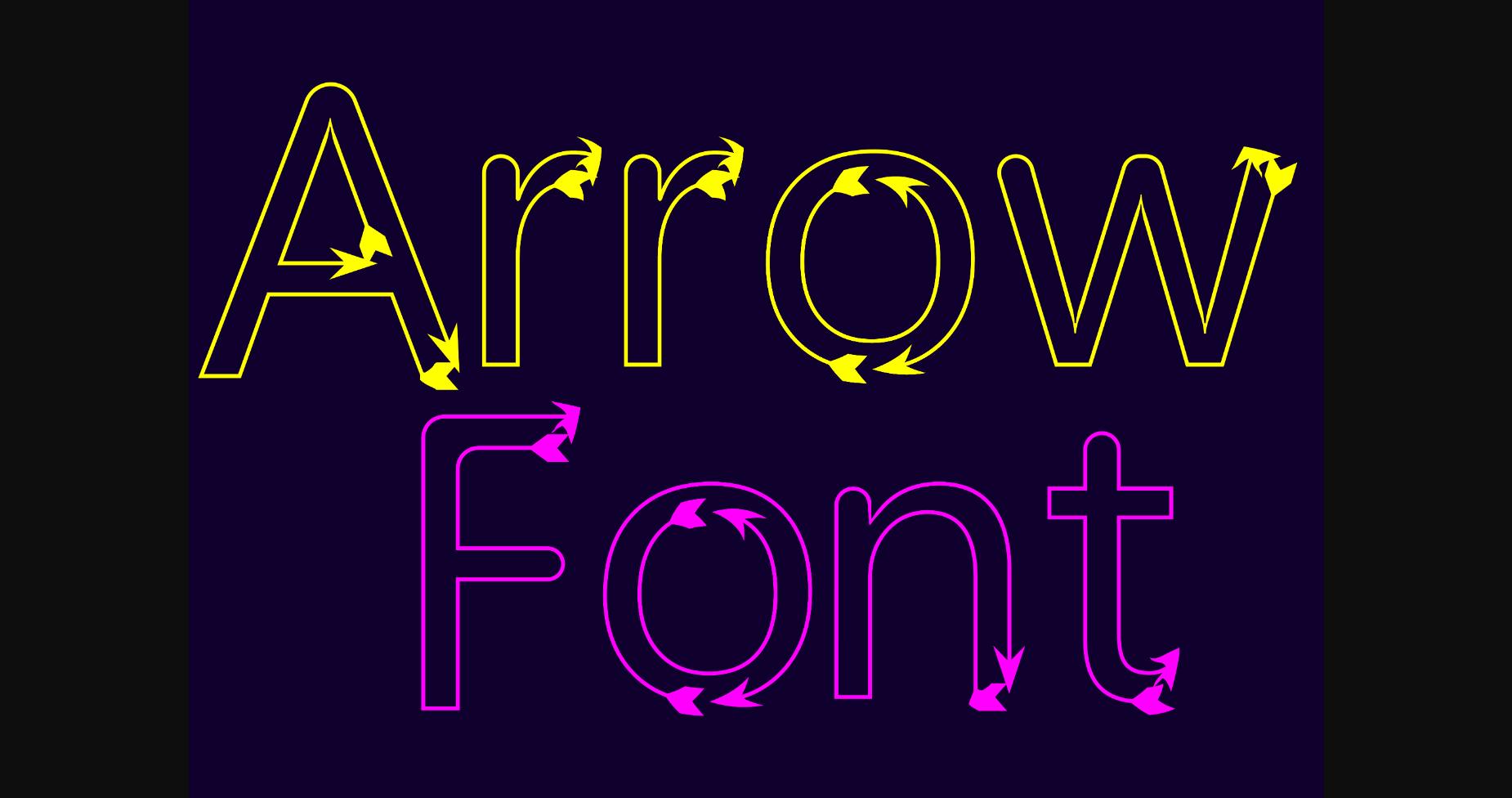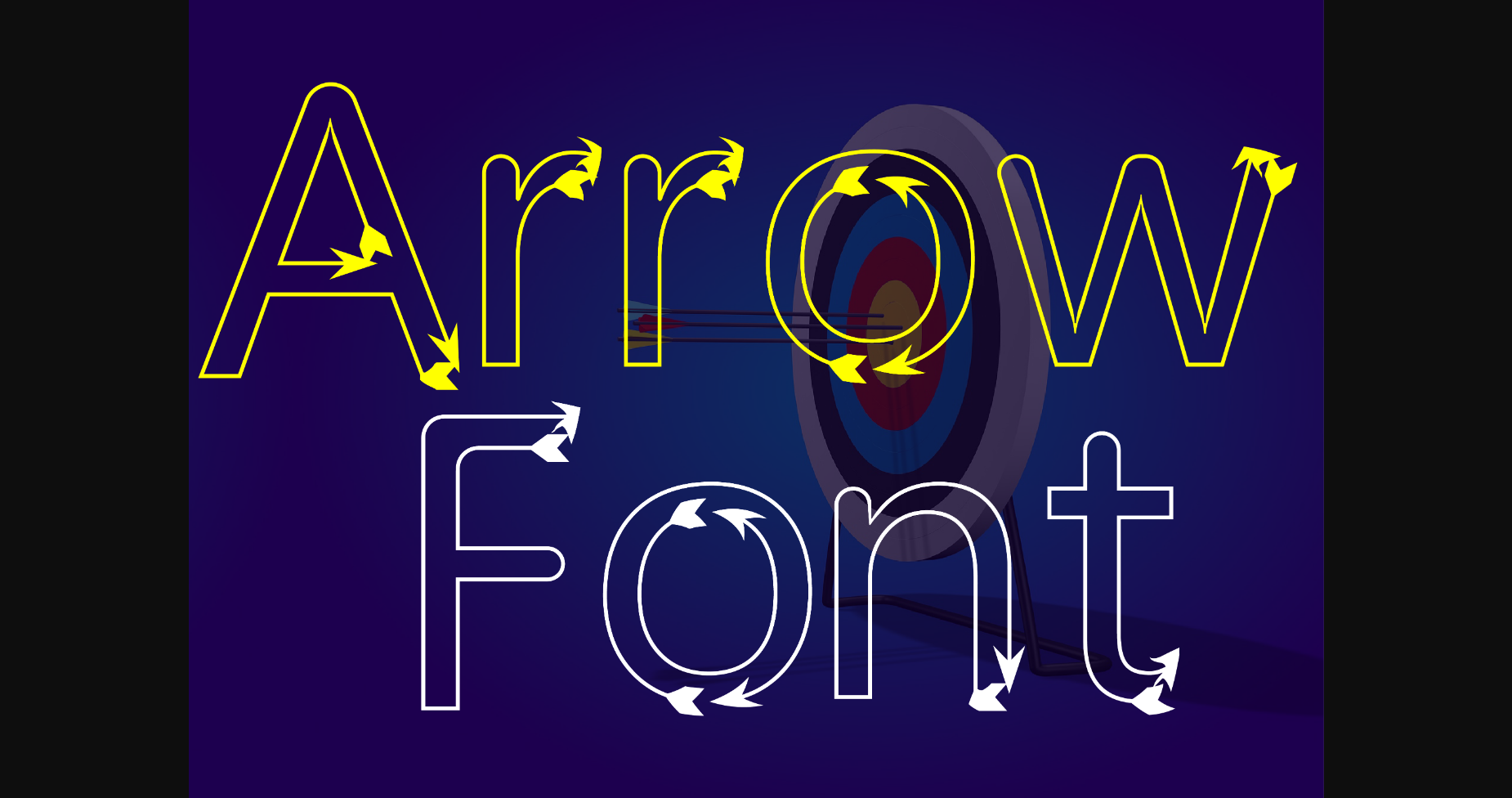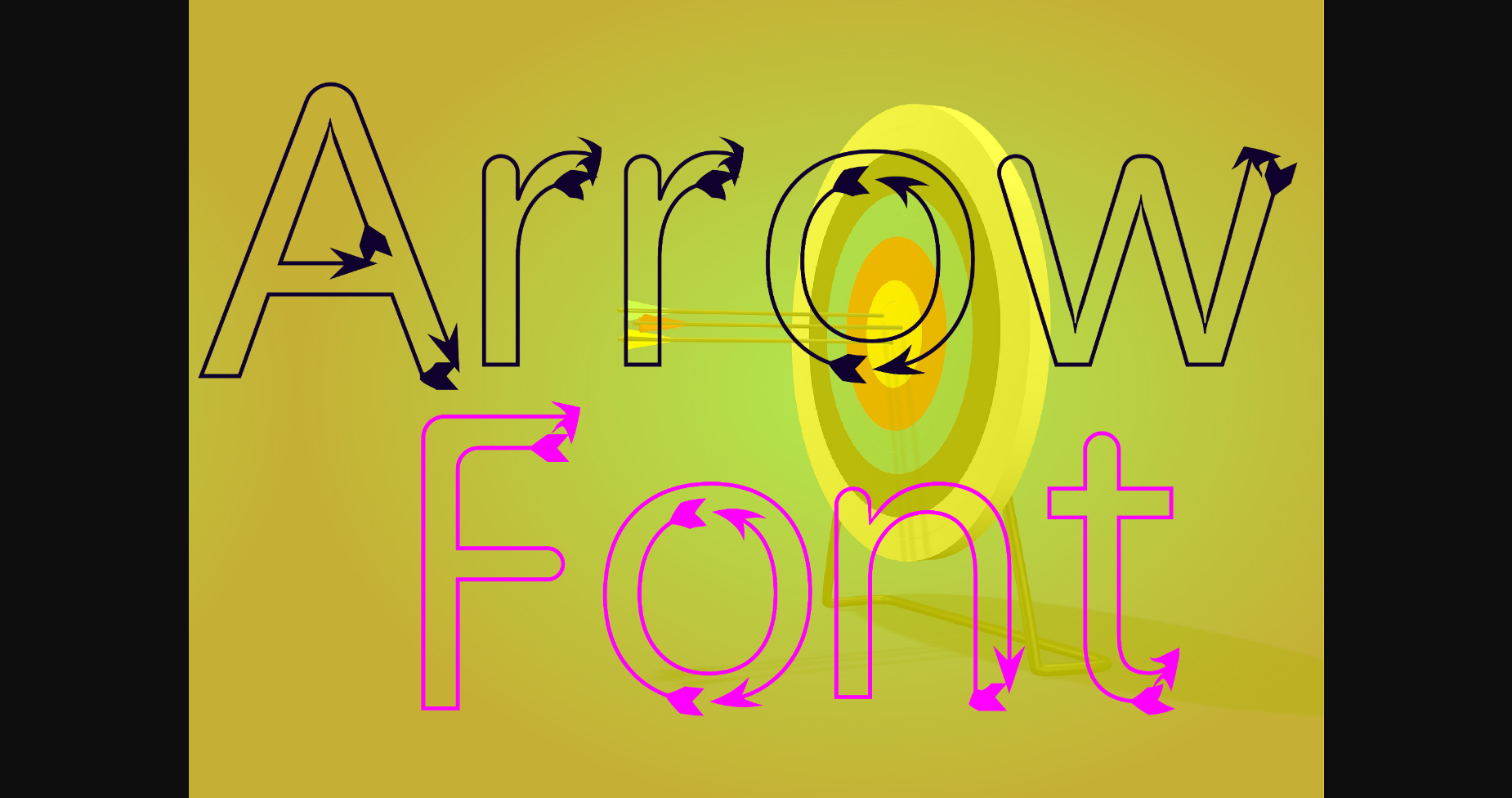
About Arrow Font
This unique display font features arrow symbols as part of the character set. These symbols can be used as part of a text string, or as standalone design elements. It can be used for a variety of purposes, such as indicating direction, creating flow charts, or adding visual interest to a design.